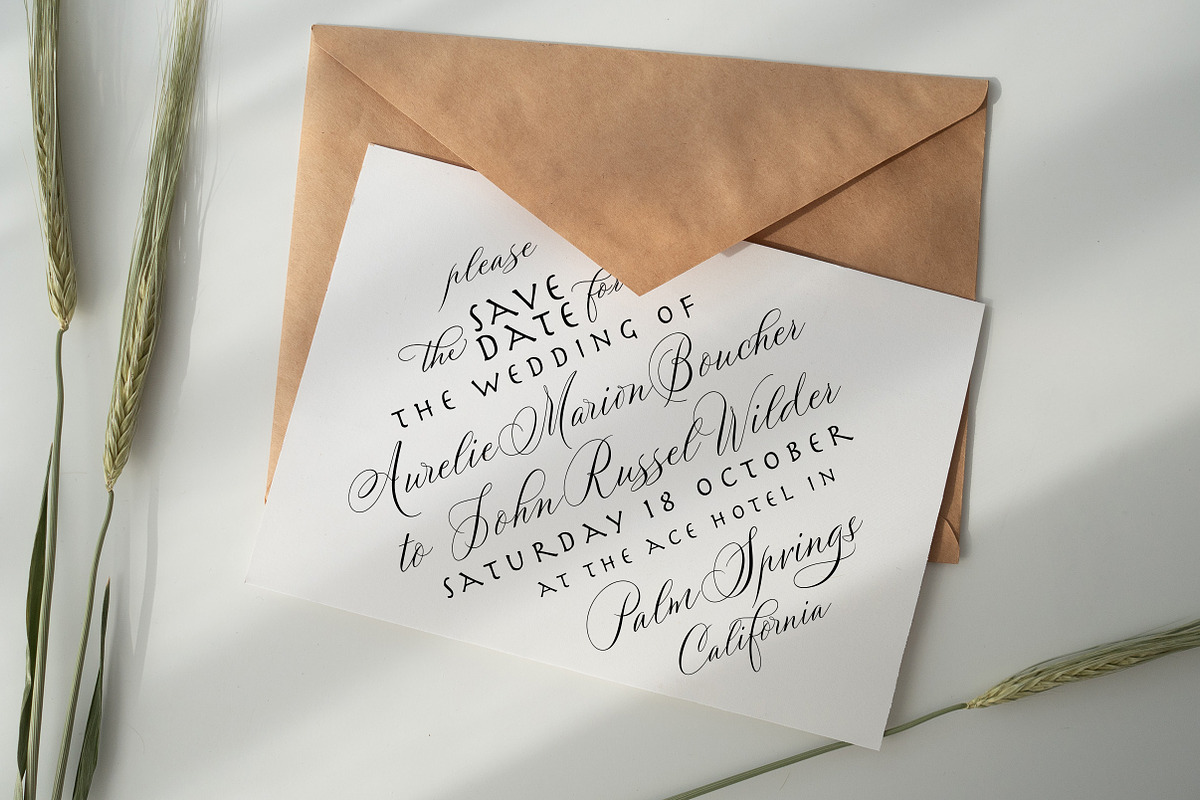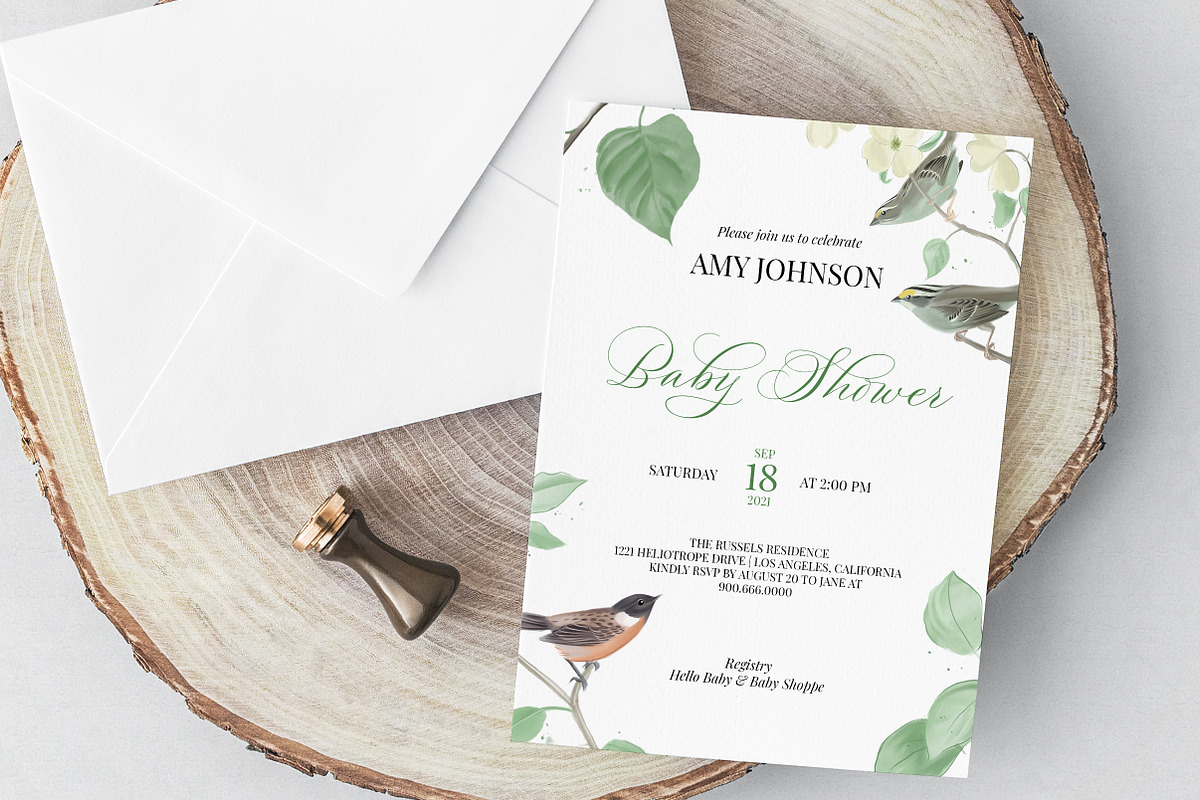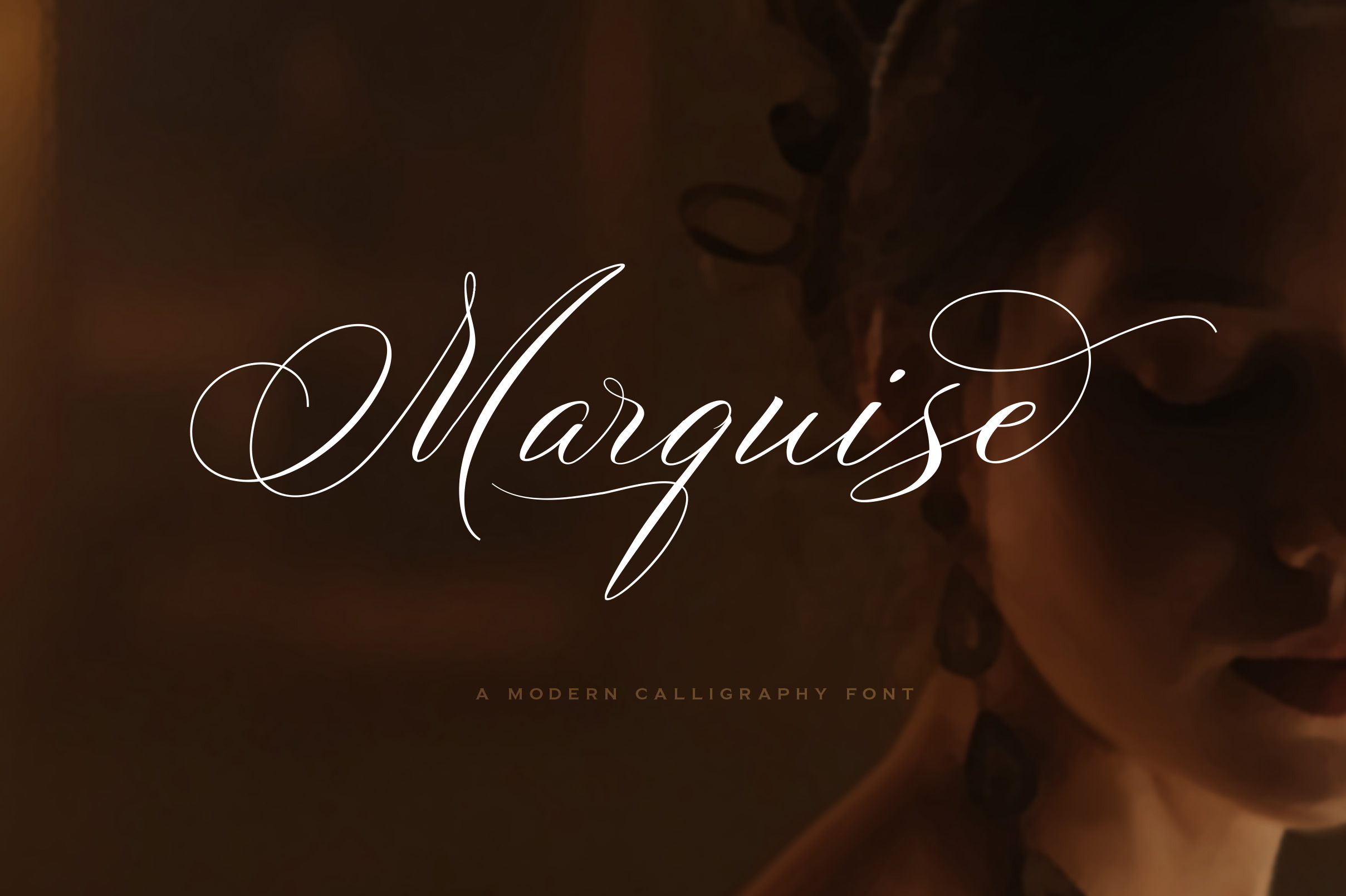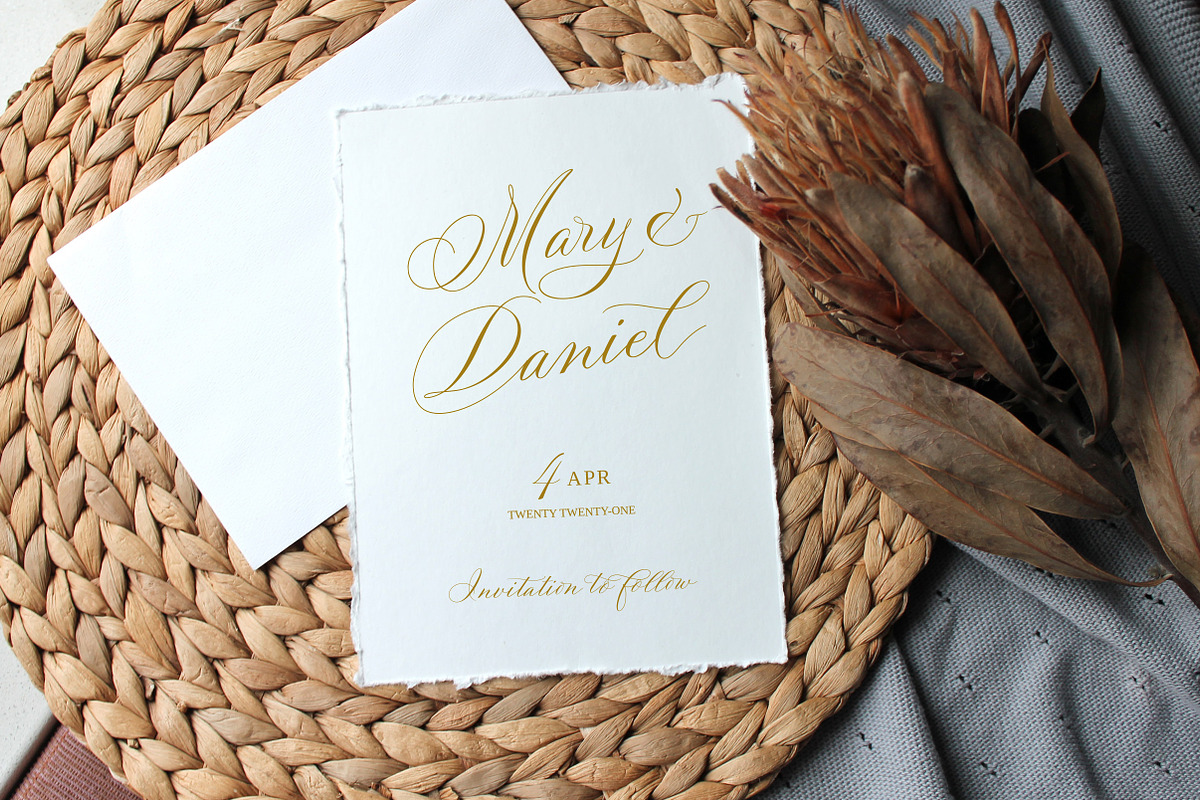
Marquise - A Wedding Script Font
Marquise is a jazzy calligraphic script for custom wedding invitations, save-the-date cards, and personal branding. Based on classic shapes, it is designed to resemble natural handwriting with slight variations in tilt, baseline, swashes, and stroke width. Marquise has extended character set with Western European languages support